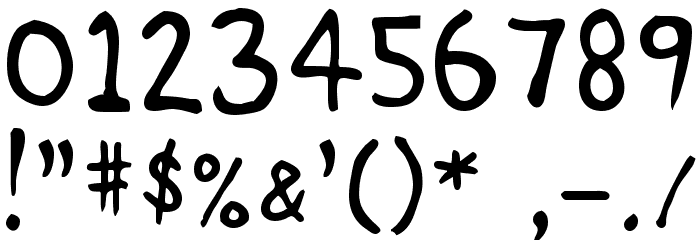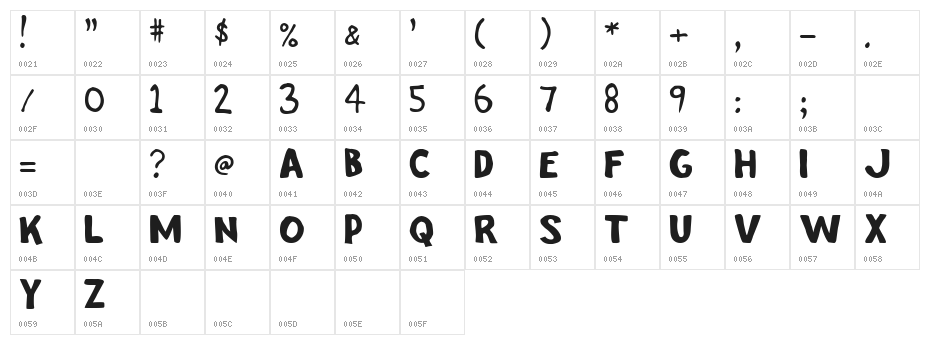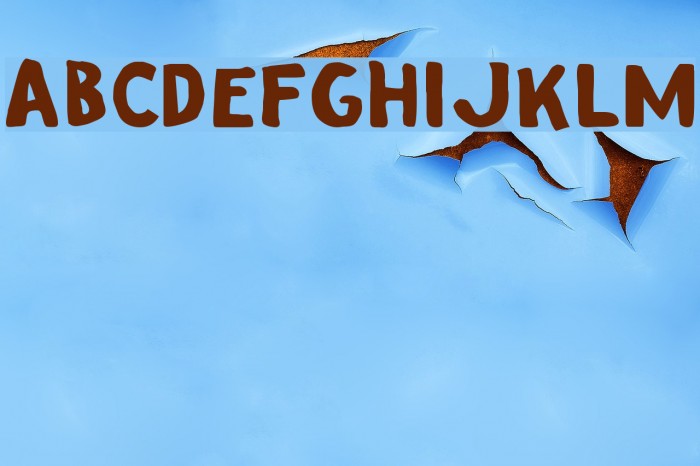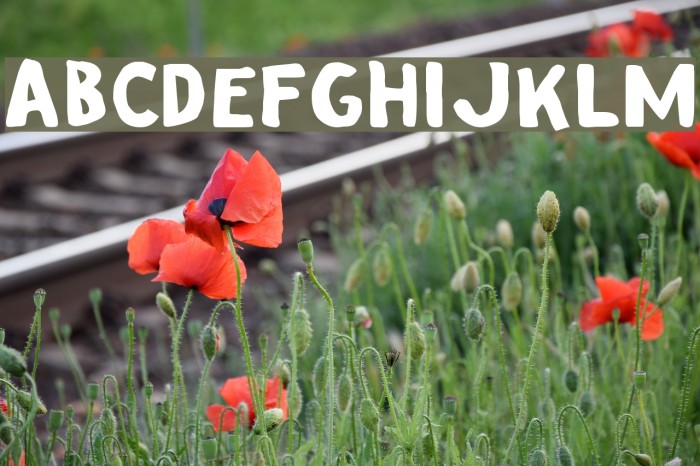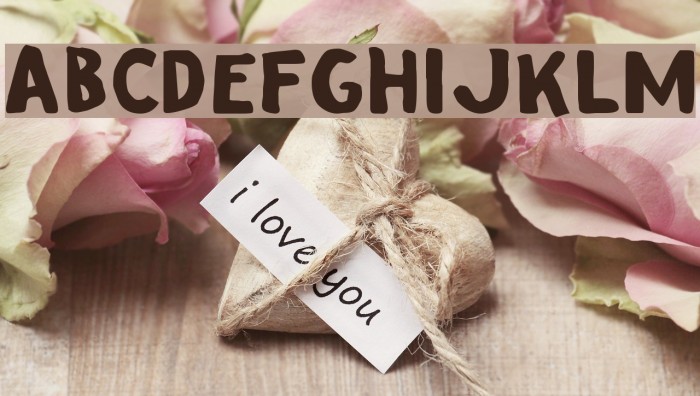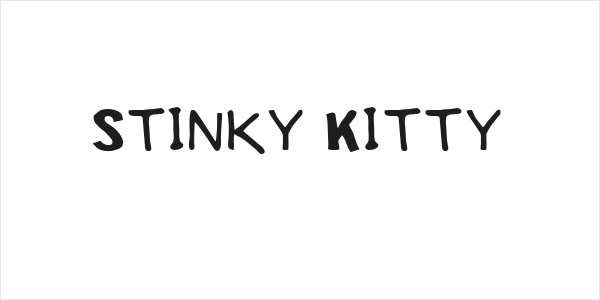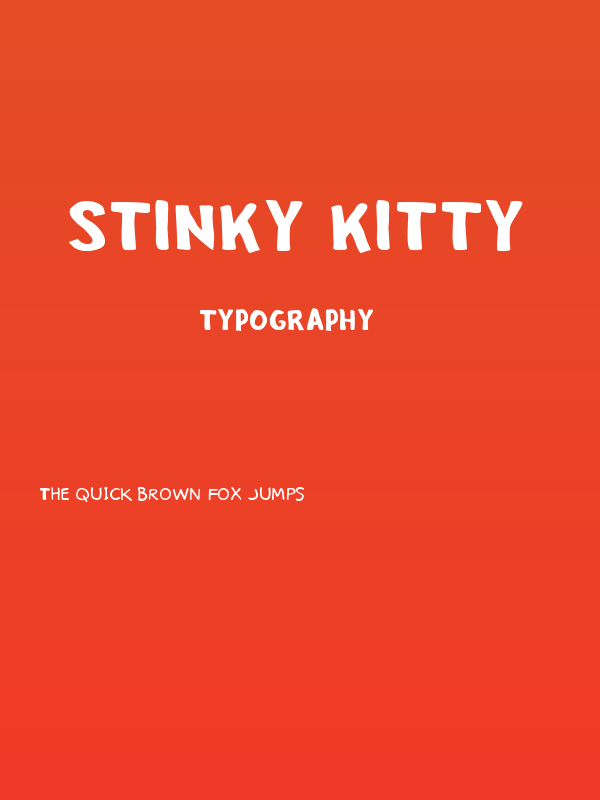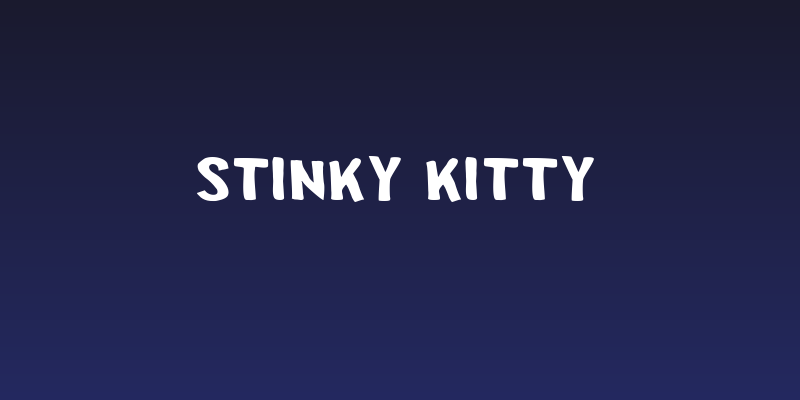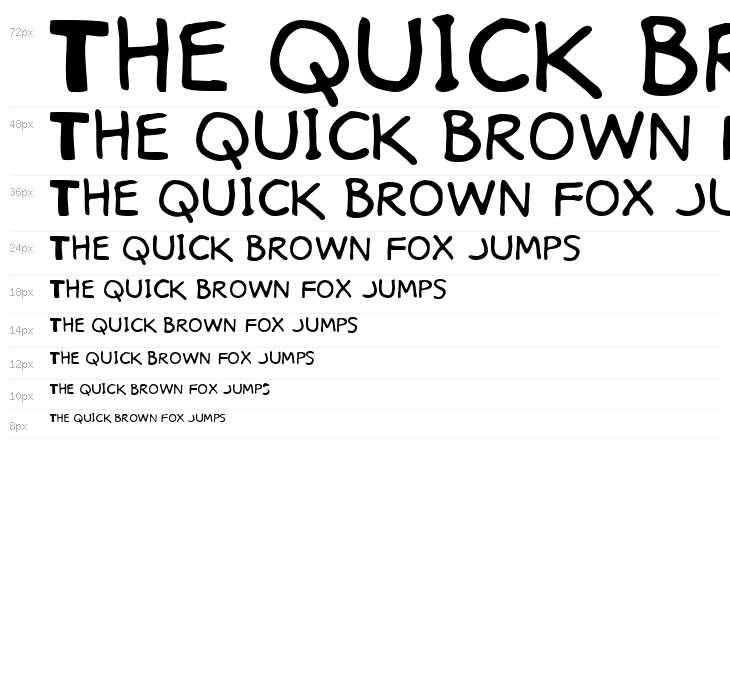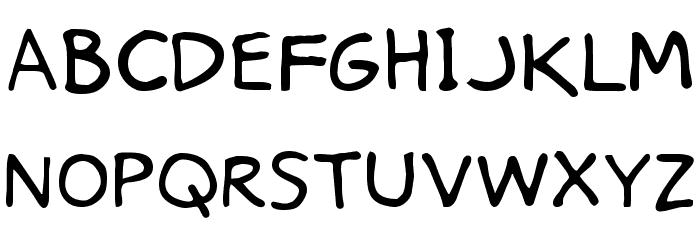
Stinky Kitty Font
Stinky Kitty Description
This playful and quirky font features bold, rounded characters with a hand-drawn appearance. The letters have an uneven baseline, adding to the casual and whimsical feel. The uppercase and lowercase letters maintain a consistent style, with slightly exaggerated curves and strokes that give the font a lively personality. The numbers and special characters follow the same playful design, making it suitable for projects that require a fun and informal touch. The font's unique style makes it stand out, perfect for creative and artistic applications.
| Proposed Projects | Ideal for children's books, comic strips, playful branding, and creative posters. |